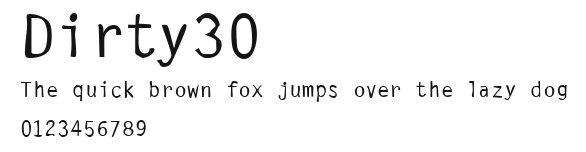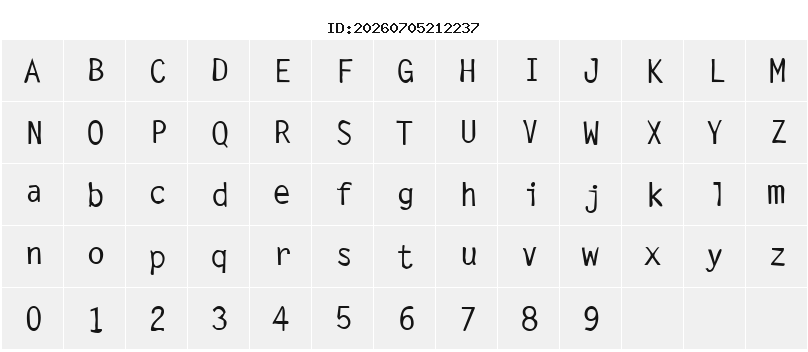
Dirty30 Preview
• Font Name: Dirty30
• Full Font Name: Dirty30-Bold
• Designer: SoftMaker Software GmbH
• Manufacturer: SoftMaker Software GmbH
About Dirty30.ttf
Dirty30.ttf is a modern, elegant sans-serif font designed for ultimate readability and visual harmony. Perfect for branding, headlines, web design, and print materials.